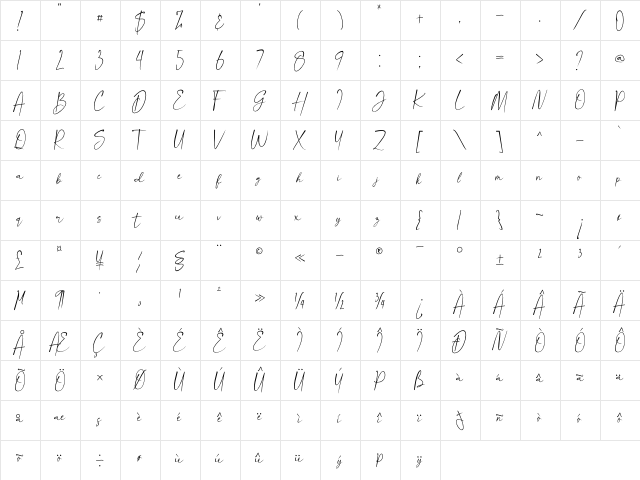
Appear Regular
| Designer | Arief Tri Sulistiyono |
Design Context for Appear Typeface
Appear is a composed and adaptable typeface that performs quietly and consistently across a wide range of design contexts.